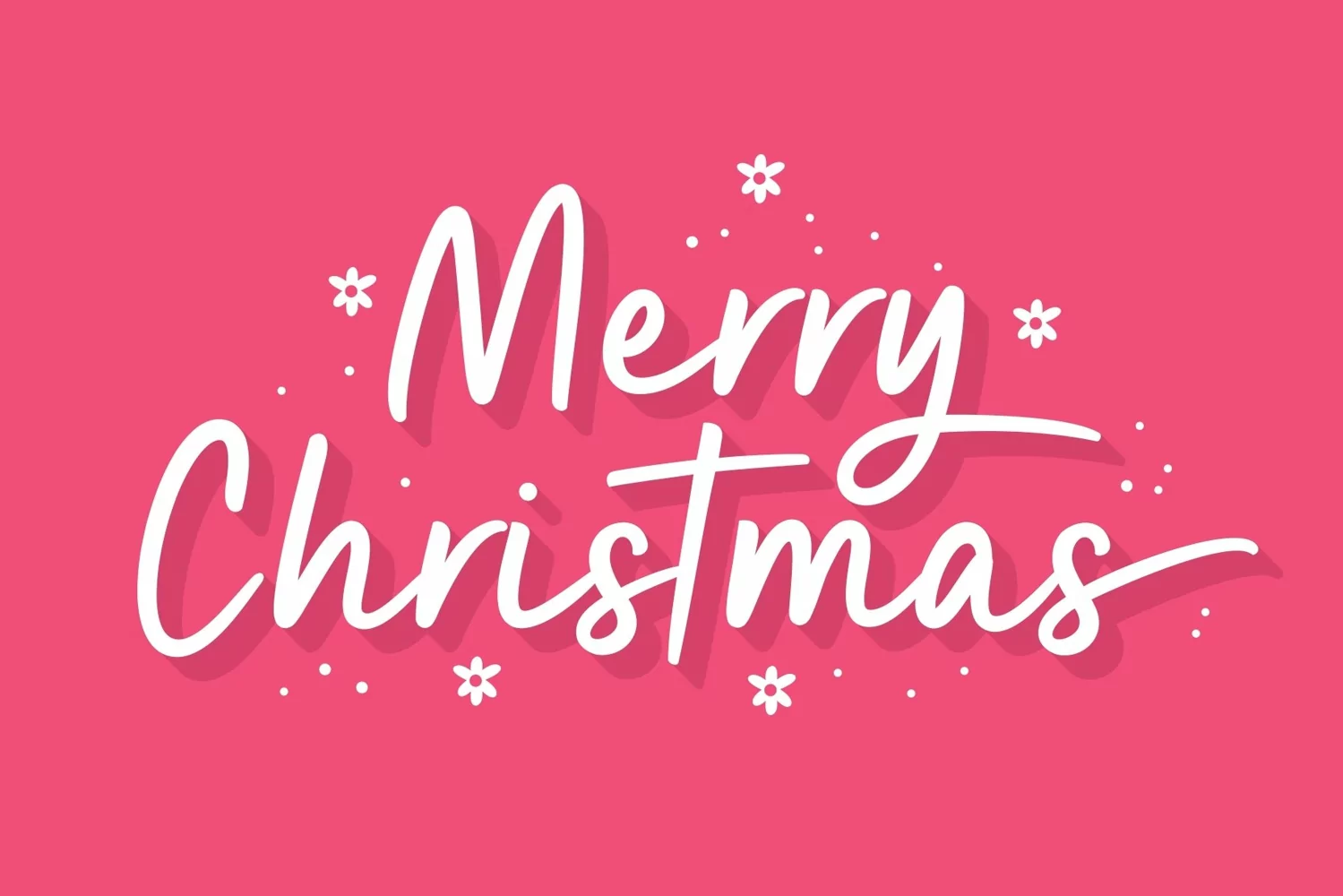
Valentines Romance - Elegant Signature Font
Say hello to Valentines Romance! A new signature font with a simple and classy style!
Really befit to all your design project,like invitation card,product logo,quotes, business card, food brand logo ,website and much more.
Font Features :
- numeric & Multilingual support
- Ligatures and Ss01